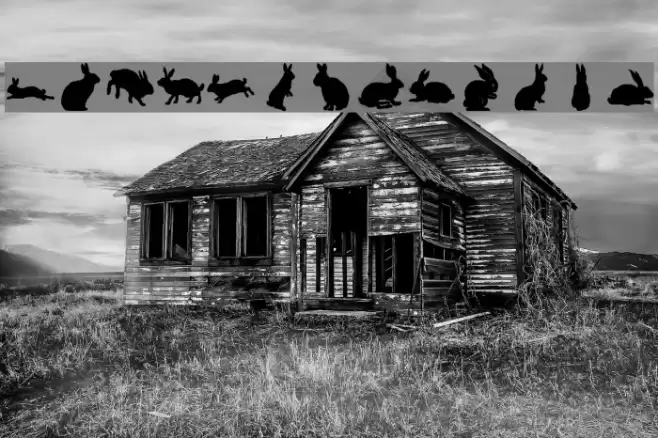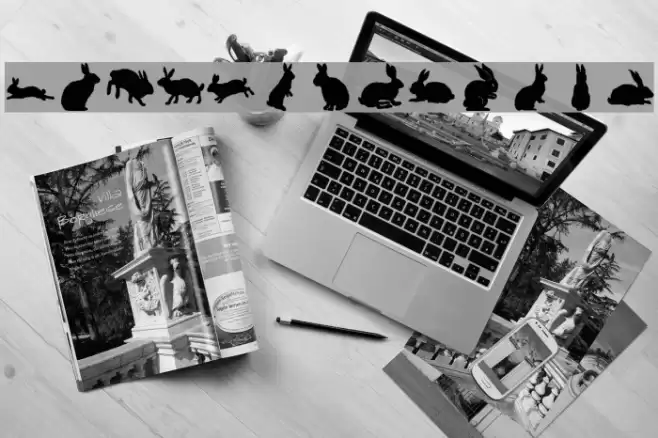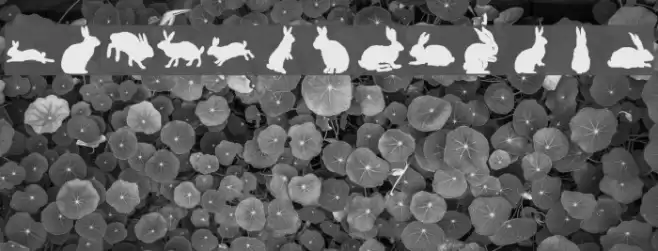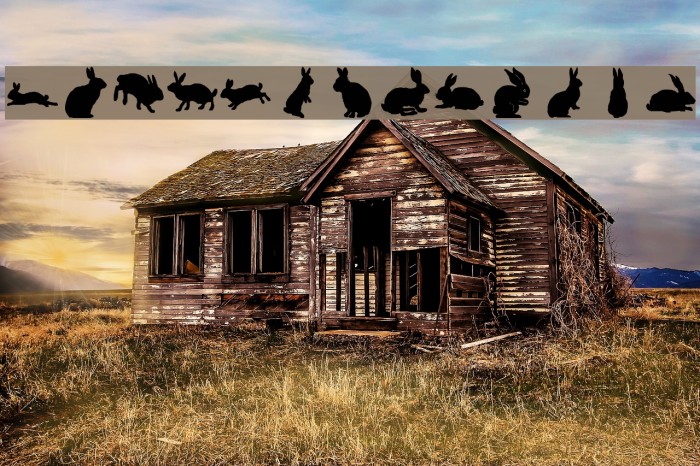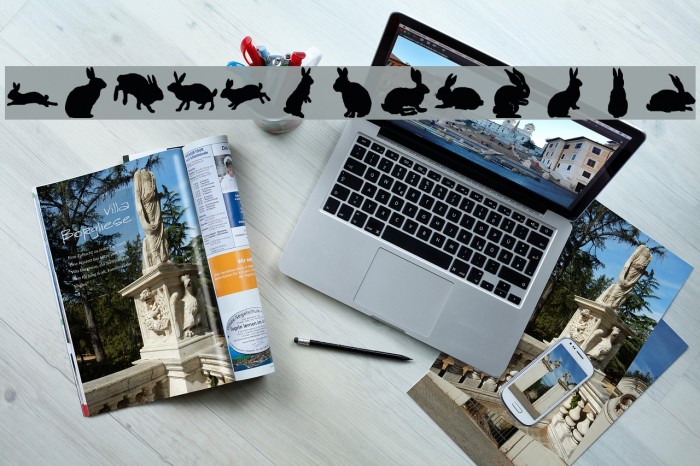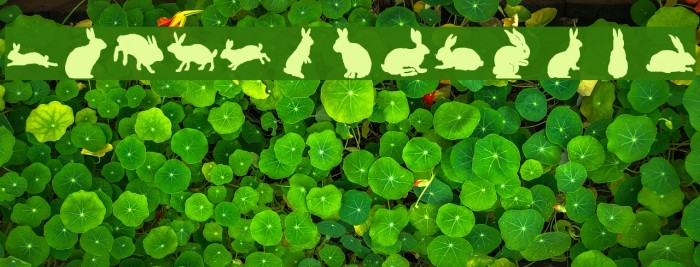
lprabbits1 Font
lprabbits1 Description
A collection of solid black silhouette illustrations of rabbits in various poses, including sitting, standing, running, and crouching, along with a decorative element featuring a rabbit and foliage.
Silhouette rabbit illustrations in multiple poses from Dingbats fonts.
- Proposed Projects: Children's books, greeting cards, Easter decorations, animal-themed designs, educational materials.
- Overall Style: Decorative, Playful, Thematic
- Use Case: Illustrations, Decorative elements, Themed graphics